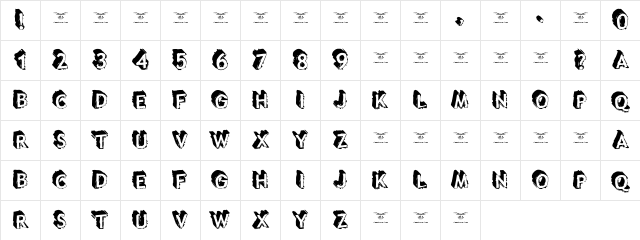
Complete Taco Truck Militia Regular glyph index. Displaying only characters natively supported by Taco Truck Militia Regular font.
Taco Truck Militia is a composed and adaptable typeface that performs quietly and consistently across a wide range of design contexts.